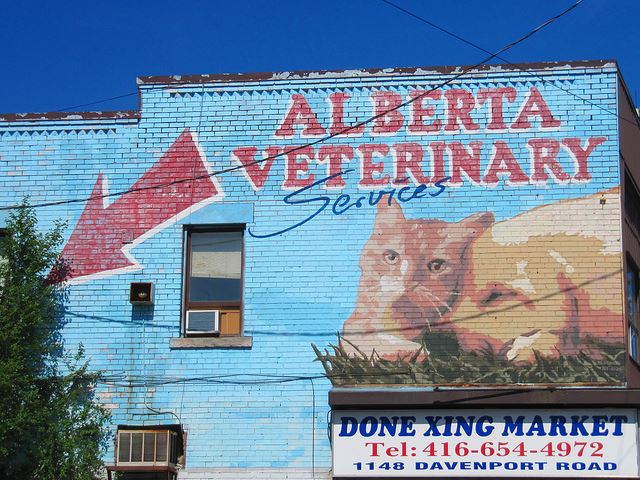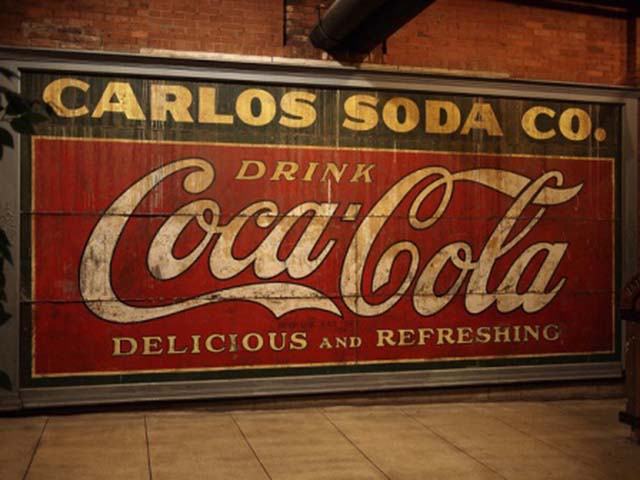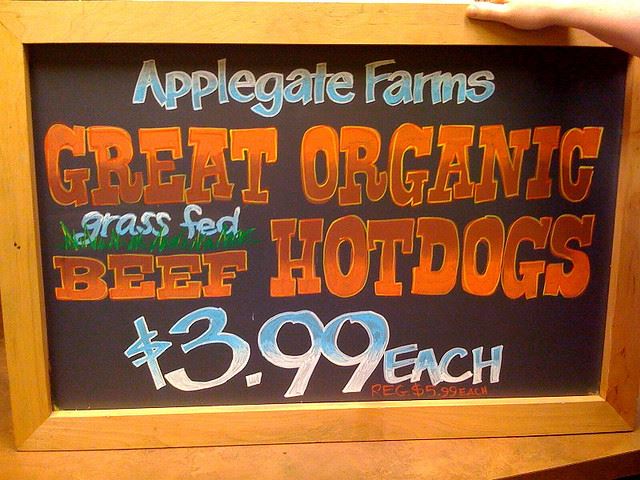
The World’s Most Amazing Hand-Drawn Sign Art
Hand painted signs have been a large component in the long history of visual advertising. Sign painters displayed their eye-catching work on restaurants, billboards, political advertisements, traffic signs and more. Hand-drawn and painted signs created a rich visual landscape of colors and fonts. Though hand painted signs faded away as illustration software came onto the scene, a large resurgence of artisanal signage has occurred as a whole new generation admires the resonant imagery of handcrafted signs by coupling this craft with today’s production technology. The history of painted signage is as rich as its bold visuals and a renaissance of this visual style is transforming the way the public looks at old-fashioned advertising signage.
A hand painted Coca Cola sign on the side of a building
Early History of Hand-Painting
Before Photoshop and Illustrator became standard, artists climbed onto ladders to hand paint billboards and the sides of buildings. Different fonts conveyed different emotions and hand painted signs visually communicated what people could expect from that product, service or establishment just as digital display ads do today. Southern restaurants depicted folk lettering, conveying a home-style feel. Carnivals and circuses used bold fonts and bright colors to create whimsical signage indicative of quirky performance art.
Many early sign painters learned the trade through apprenticeships or were self-taught. Though the practice was out of necessity, it was also an outlet for artists to share their talents and passions. When vinyl printers appeared and were able to mass produce one hundred signs in the time it took to hand draw or paint one, some traditional sign painters transitioned to vinyl printing, learning to mesh the two arts together.
A veterinary clinic has a hand painted sign on the sign of a building
Mixing Nostalgia and Technology
Today, brands and businesses are turning to artists that use a mix of hand painting and drawing and technology to create signs with an old-time feel that still have a place in today’s advertising space. Some designs are created by hand and then put into computer programs to blow up or manipulate the design.
Today’s technologies make it easier than ever for companies to create signs that mimic the look of traditional hand painted signs or mass produce one hand painted or drawn sign. While younger people interested in traditional sign painting may learn through connections or apprenticeships, there are still a handful of trade schools that offer sign-graphics programs, allowing for today’s generations to start with a pencil and paintbrush and slowly integrate these traditional creation tactics with current computer programs. This permits hand painted signs to be replicated and mass-produced for commercial uses.
A hand painted sign advertising hotdogs
Organic Goods Need Organic Signs
The public is changing the way they look at food and products. People want to know where their food comes from and they want to know businesses exist that share these same ideals. Restaurants and stores that sell organic, home-grown goods that are fresh and free of additives may look to hand painted signs or vinyl signs that resemble traditional hand painting to convey that simple, unprocessed feel. Whole Foods brought in a professional sign painter to teach its designers how to do chalk board art correctly, making for a brand new era in Whole Foods signage. These chalk art signs, which can be found throughout Whole Foods stores, provide a sense of small-time business within a corporate setting. Whole Foods hires graphic designers who try their hand at sign drawing or work alongside sign painters to incorporate the old-style sign creation with current digital applications.
Hand-crafted signs may have been overtaken by today’s quick-turnaround production techniques, but the tradition of these signs is making a strong comeback in current advertising space. They are being integrated with vinyl production, recreated digitally or are specially created by the minority of shops concentrating on hand painted advertisements. By reviving hand painted and drawn sign art, and finding its place within and beside modern technology, this type of traditional signage holds will continue to hold an important place in visual advertising.